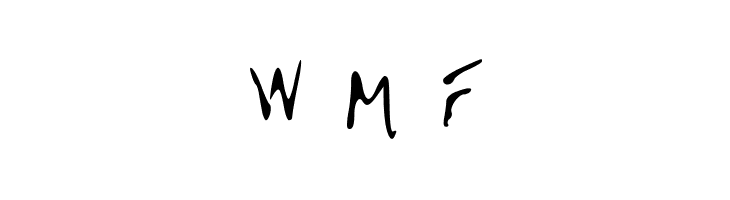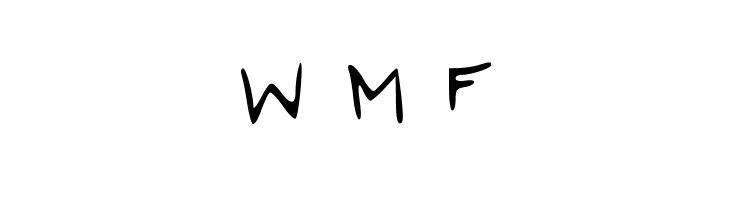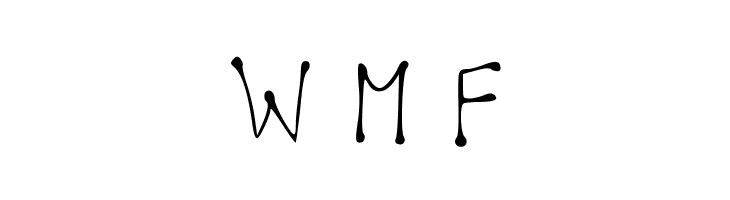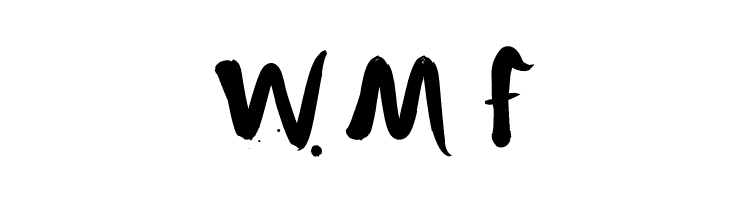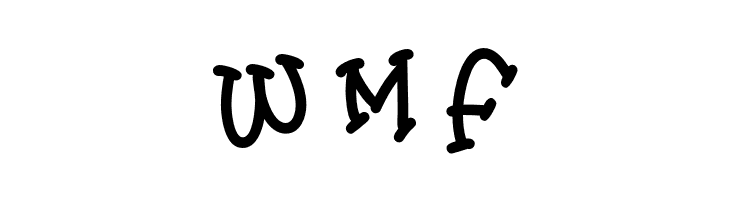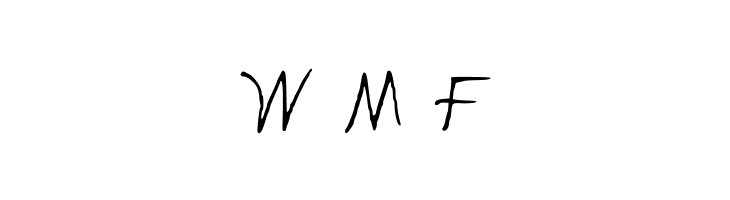
A dynamic, handwritten-style font with fluid, expressive strokes.
A dynamic, handwritten font with playful and irregular letterforms.
A playful, casual handwritten font with irregular strokes and organic flow.
A dynamic, hand-drawn font with an expressive and artistic style.
A playful, casual handwritten font with dynamic and irregular strokes.
A playful, hand-drawn font with quirky, irregular strokes and dynamic character shapes.
A playful font with characters embedded in fly illustrations, offering a whimsical and decorative style.
A playful, handwritten font with irregular strokes and a casual style.
A playful, cursive font with fluid, whimsical strokes.
A playful, hand-drawn collection of bold and whimsical symbols.
A playful, dot-based font with a whimsical, bee-like appearance.
A playful handwritten font with uneven strokes and a casual style.
A playful, hand-drawn font with a rough, organic texture.
A playful, hand-drawn font with irregular, sketch-like strokes.
A bold, playful handwritten font with thick, uneven strokes.
A monospaced, italic font with a playful and modern style.
A whimsical, hand-drawn font with playful, uneven strokes.
A bold, expressive brush-style font with an artistic and creative flair.
A playful, bold font with a hand-drawn, whimsical style.
A bold, playful handwritten font with rounded, irregular letterforms.
A playful, 3D font with a dotted outline and rounded characters.
A playful, hand-drawn font with quirky, irregular shapes and dot accents.
A playful, handwritten font with dynamic strokes and a creative flair.
A pictographic font of hands and credit cards in transactional gestures.
A playful, hand-drawn font with bold, rounded characters and a whimsical style.
A bold, handwritten font with rounded strokes and a playful, friendly vibe.
A playful, hand-drawn font with letters in circular shapes, perfect for creative projects.
A modern sans-serif font with bold, upside-down characters for a playful effect.
A playful, brush-style outline font with a dynamic and artistic flair.
A bold, brush-style font with an energetic and artistic feel.
A playful, rounded font with smooth curves and a friendly appearance.